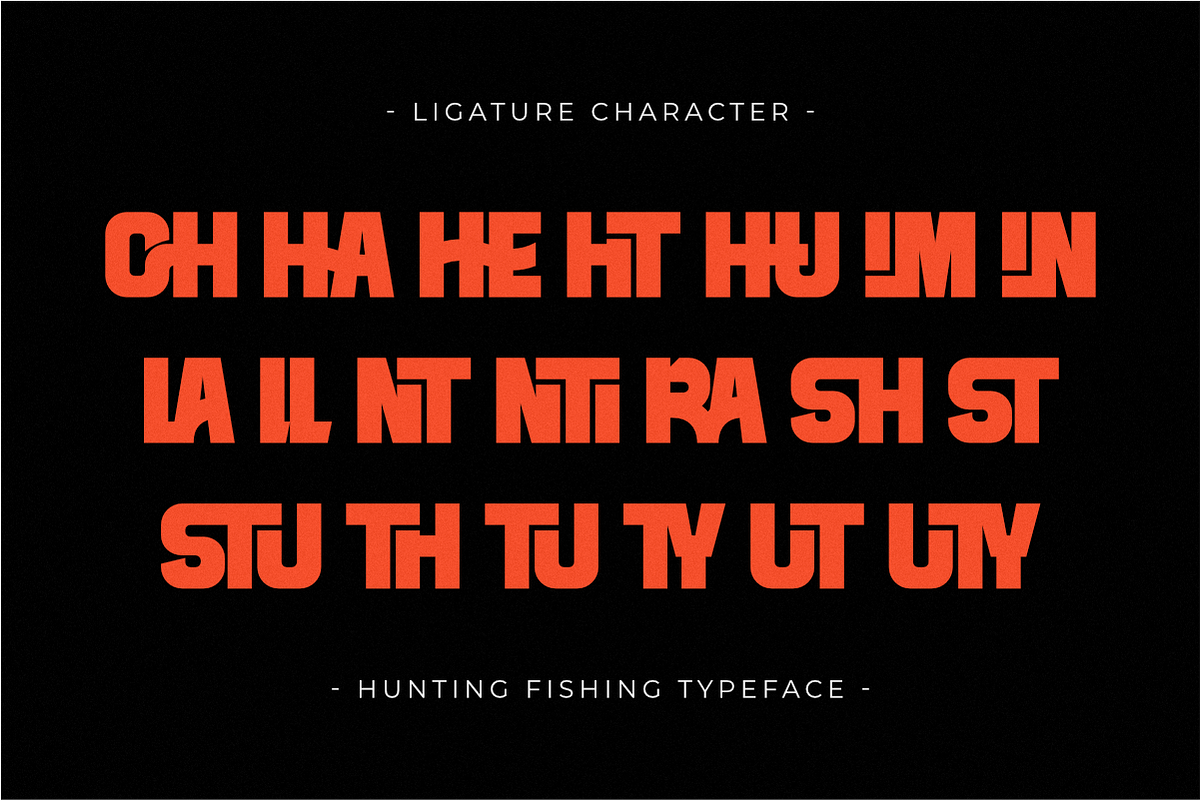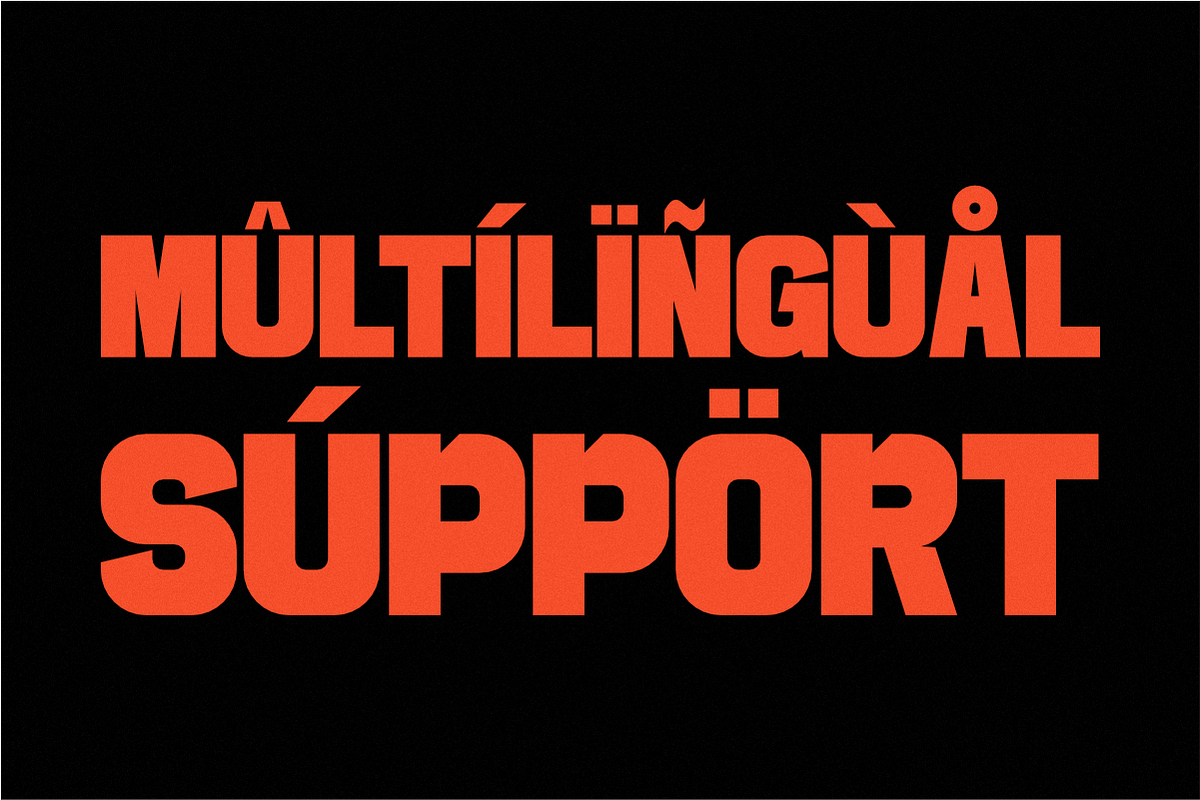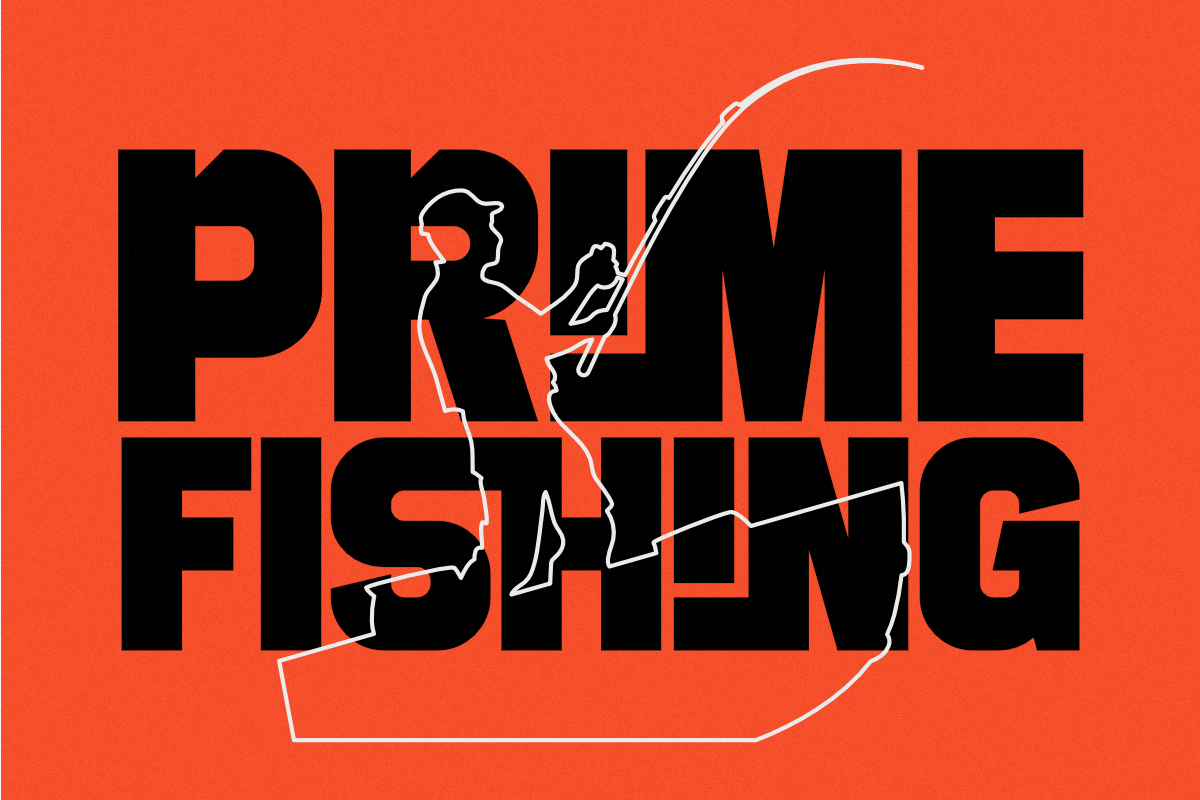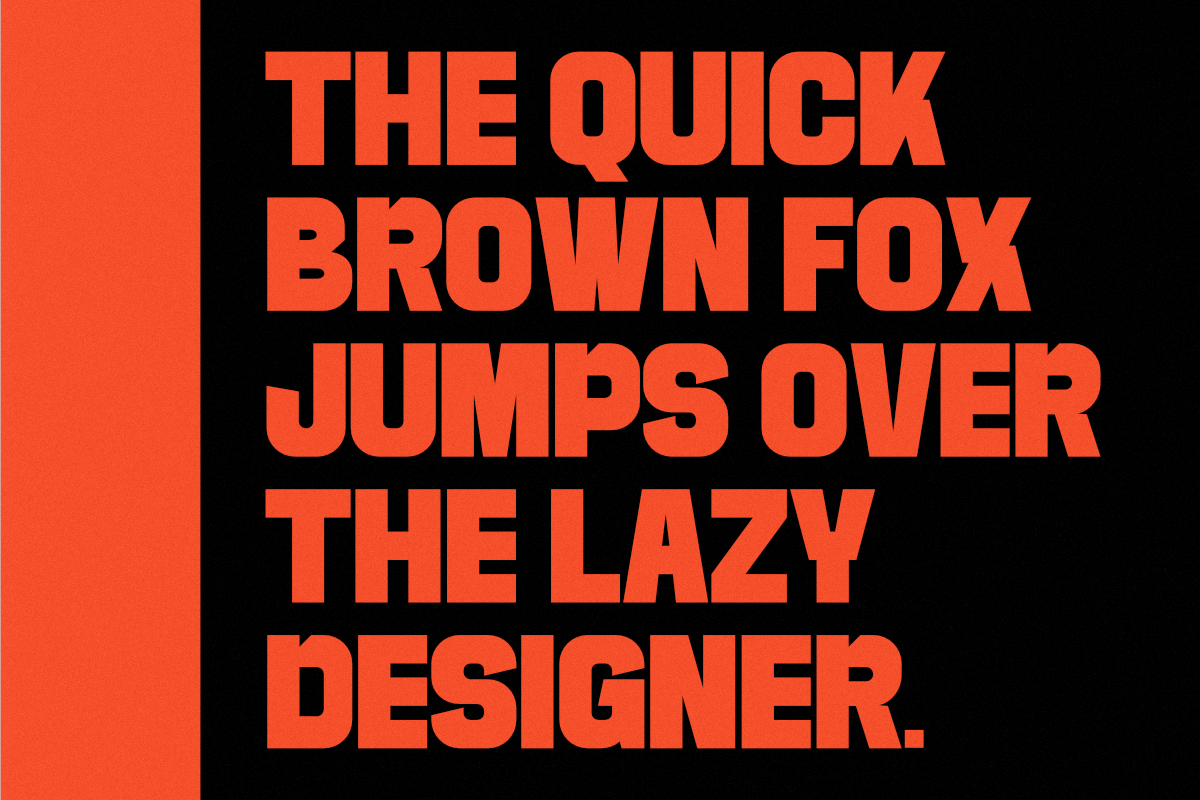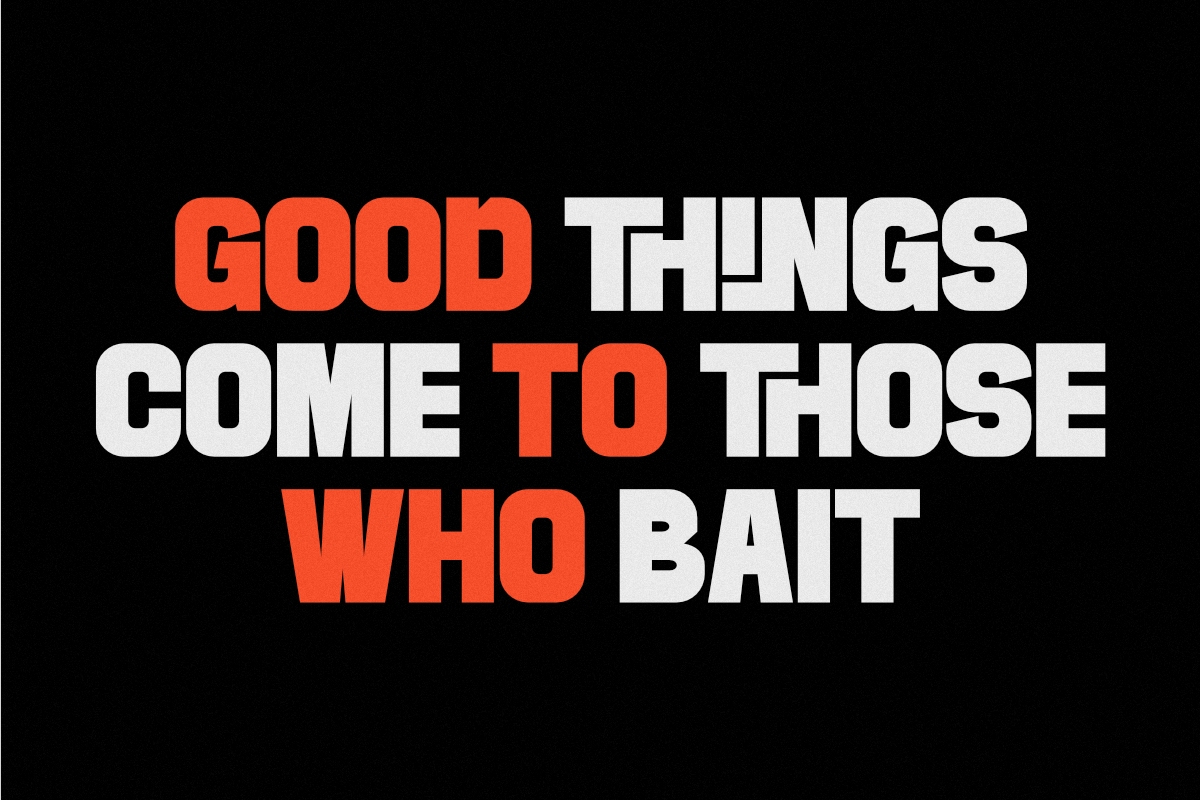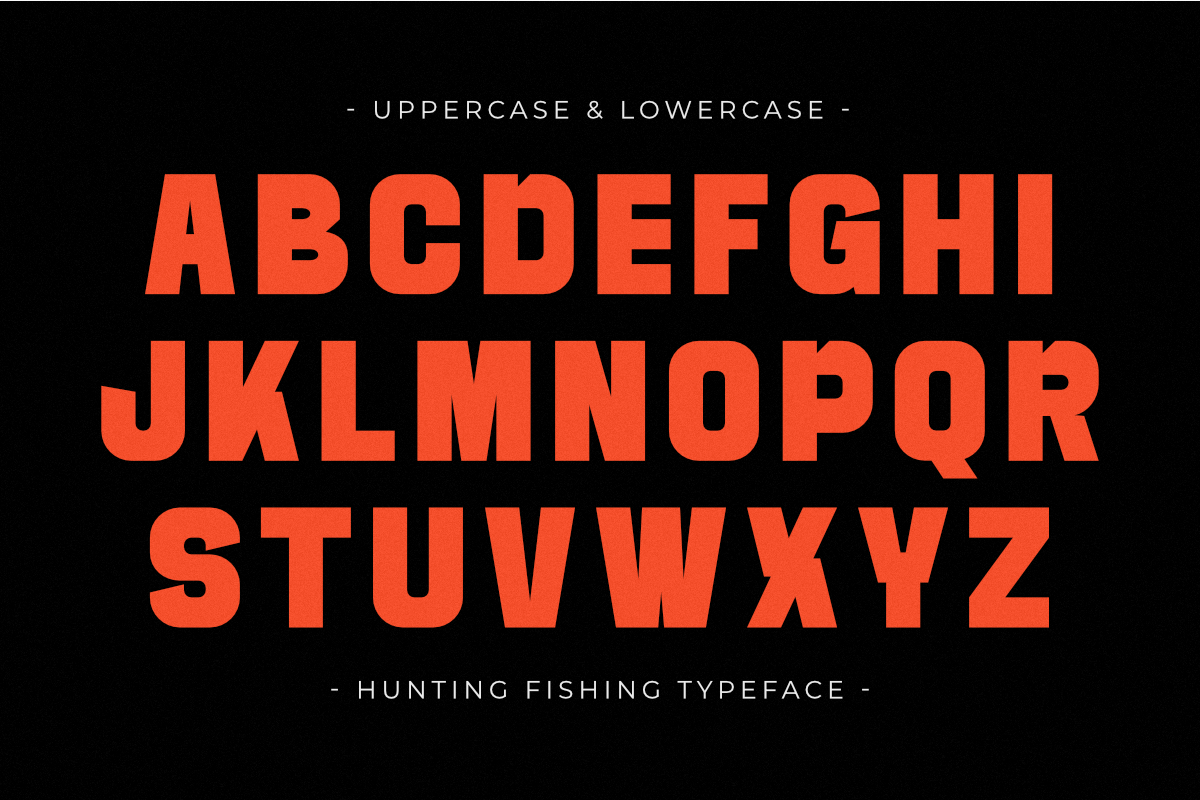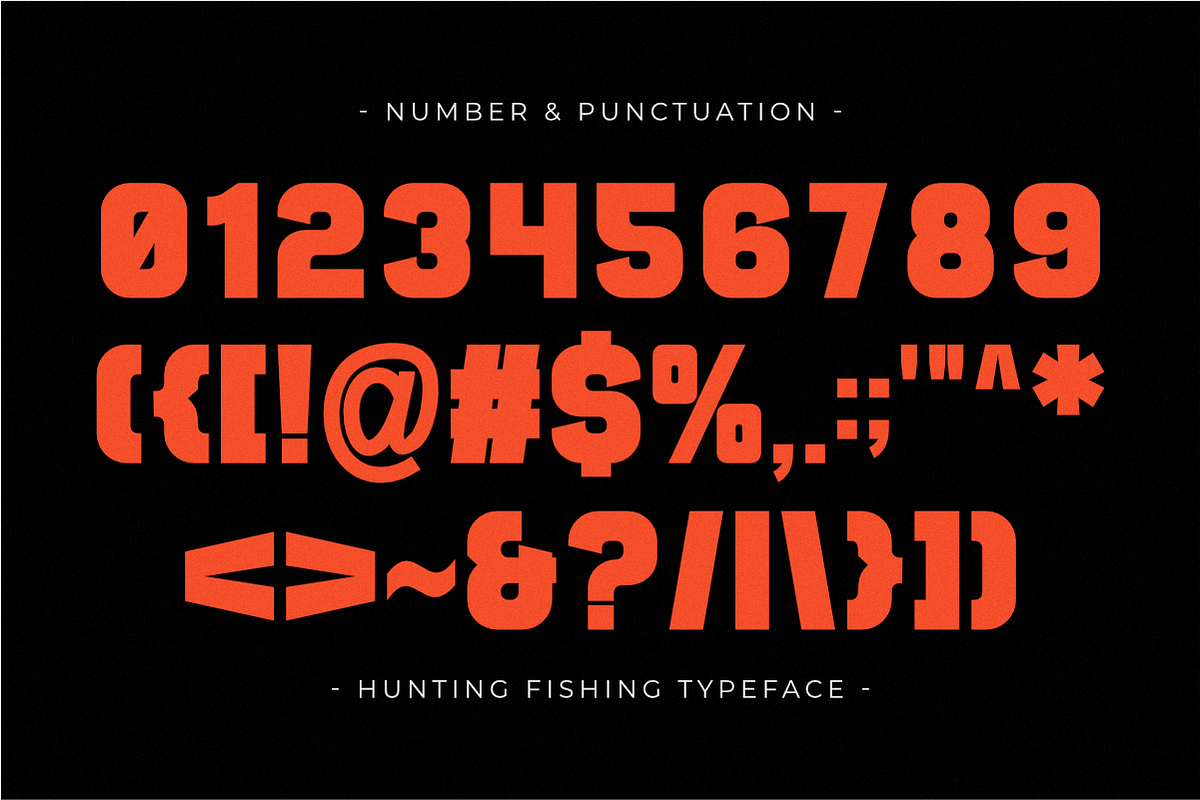
Hunting Fishing - Modern Display
Hunting Fishing is a rugged and powerful Modern Display font designed for the great outdoors. Featuring a bold, condensed structure with clean, sharp lines, this typeface captures the essence of adventure and strength. It is the perfect choice for outdoor branding, hunting club logos, fishing equipment packaging, and tactical gear apparel. This all-caps font delivers a commanding and professional visual identity, making it essential for high-impact headlines, wilderness posters, and any project requiring a strong, masculine aesthetic.